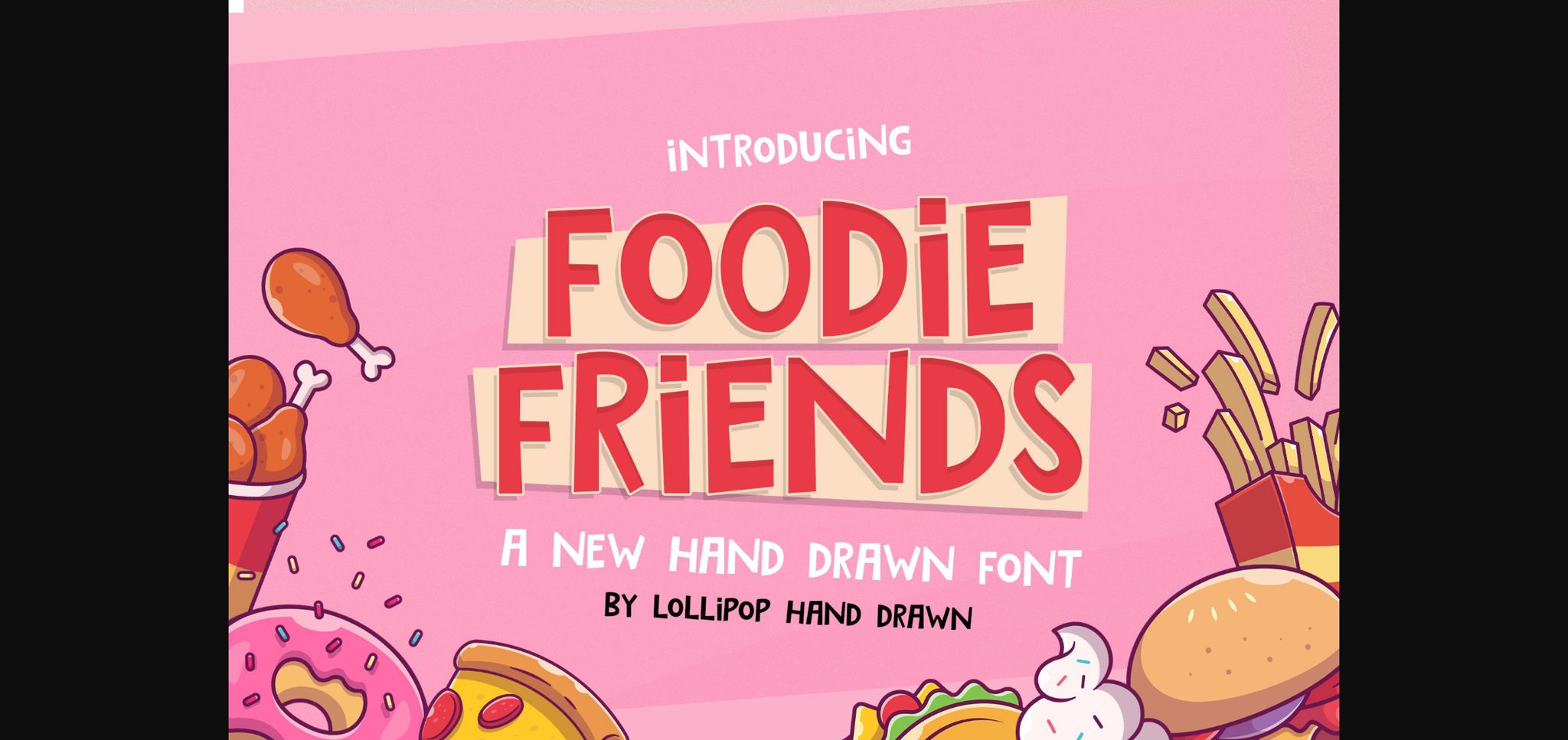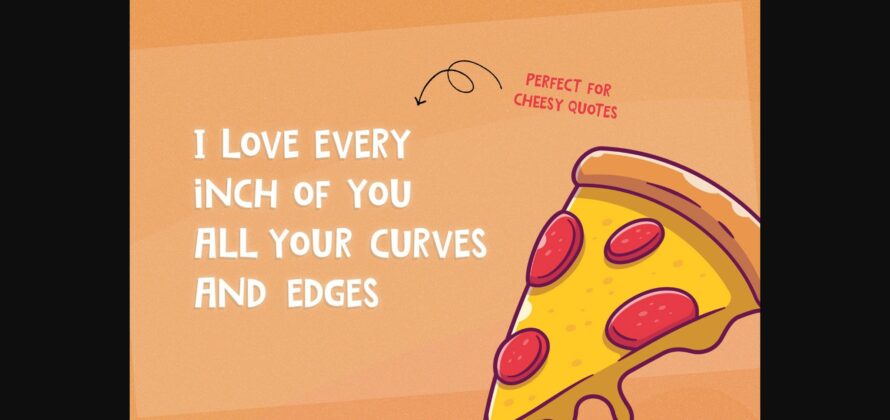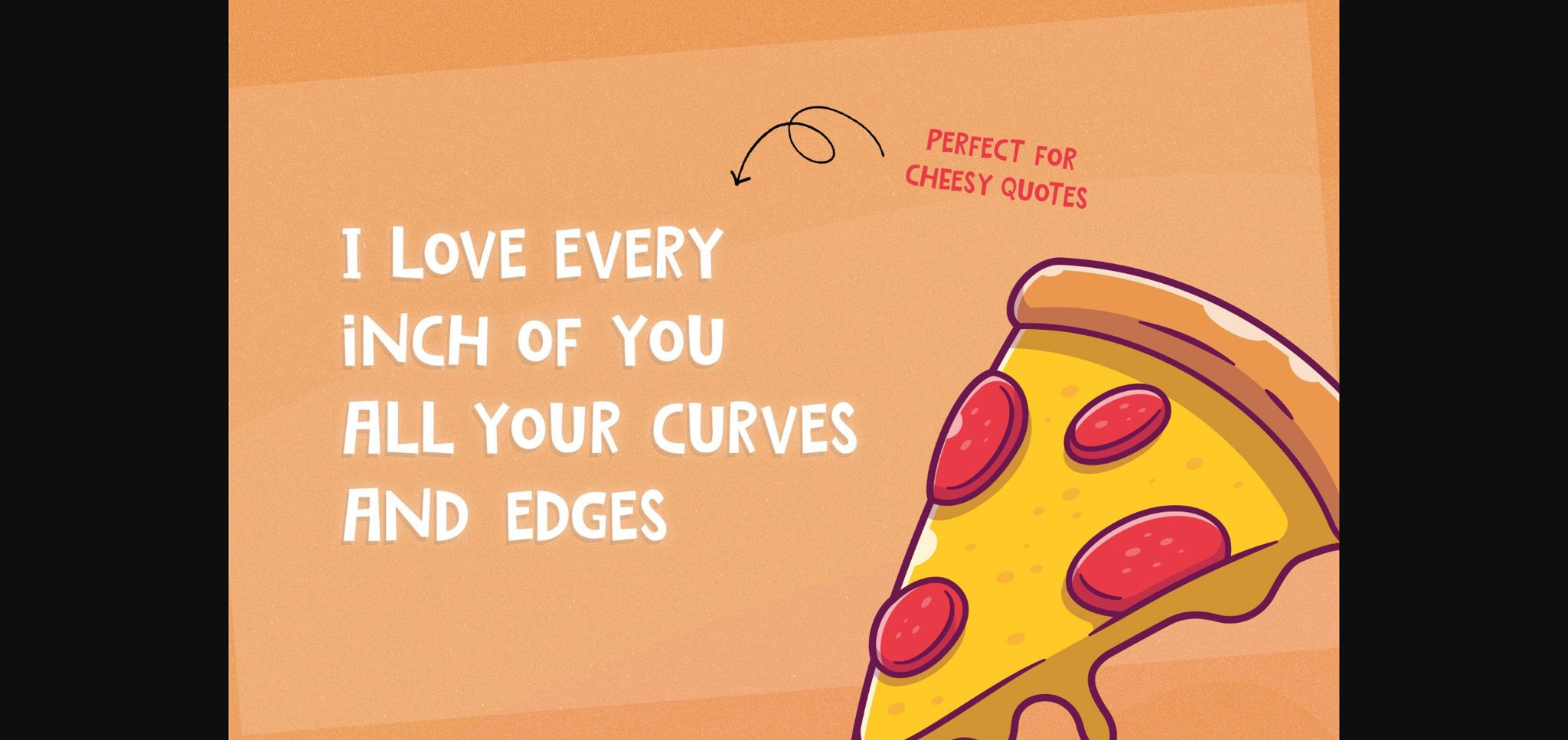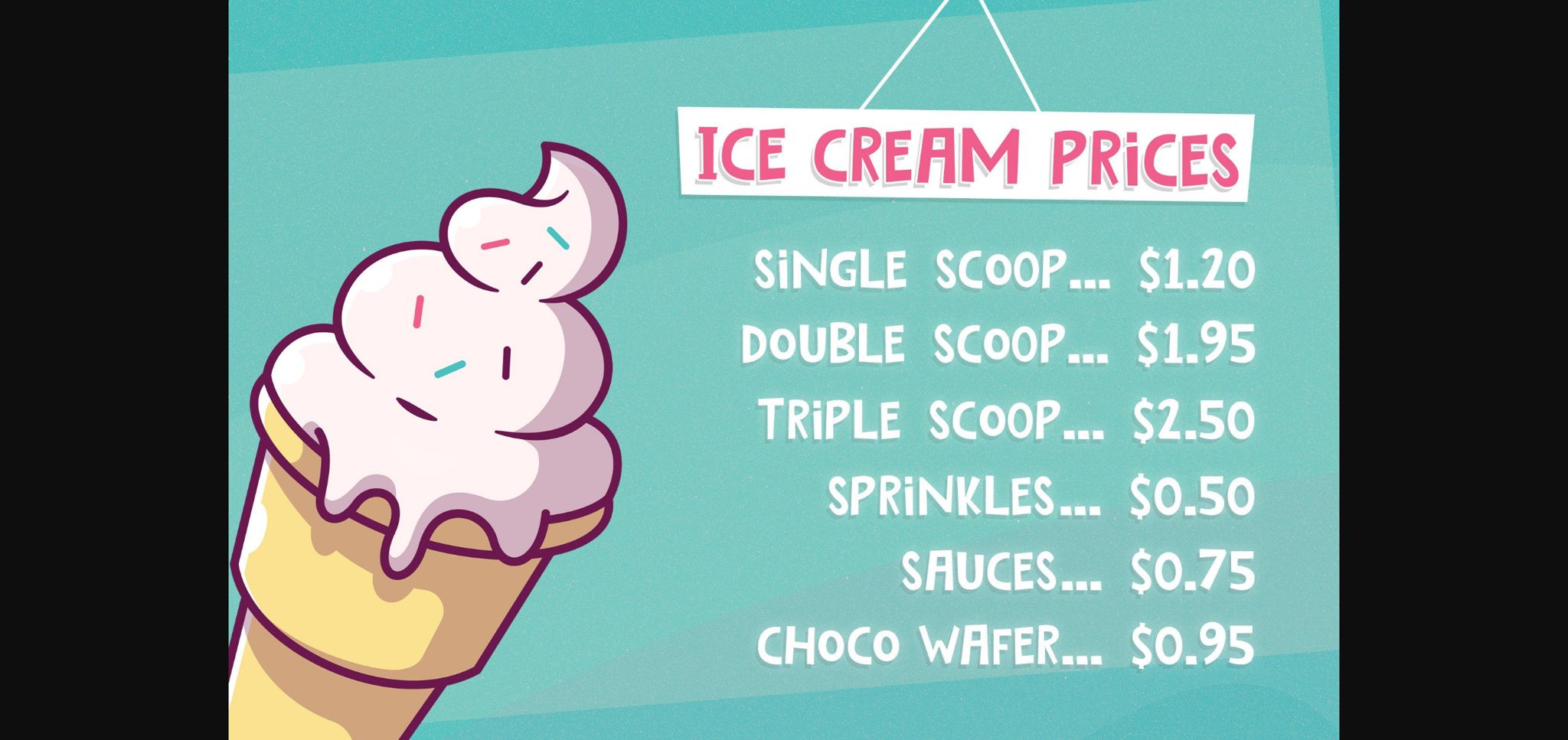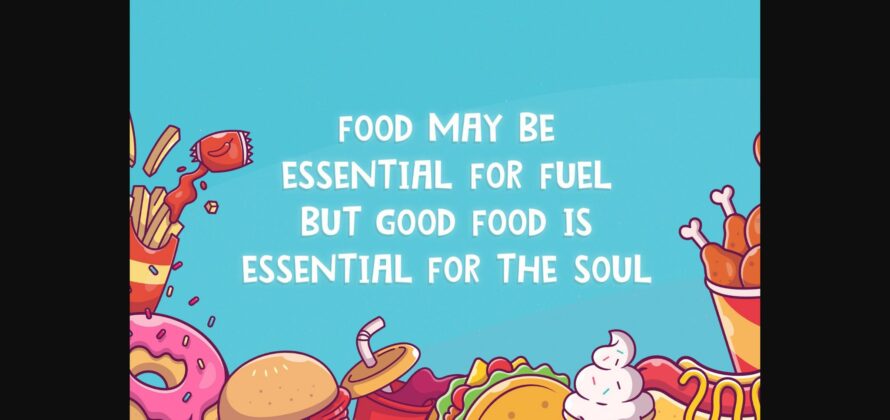
HomeSans Serif FontsFoodie Friends Font Sans Serif Fonts Foodie Friends Font FacebookXPinterestWhatsApp 1 of 7 ... Foodie Friends Font Poster 2... Foodie Friends Font Poster 3... Foodie Friends Font Poster 4... Foodie Friends Font Poster 5... Foodie Friends Font Poster 6... Foodie Friends Font Poster 7... About Foodie Friends Font Foodie Friends is a sweet and joyful handwritten font. Its cute and playful style is suitable for a large variety of crafty ideas! DOWNLOAD NOW People also explored Machaela Font Origin Alphabet Font Linestorys Font Farmhouse Signature Font Qomallida Font MiloBely Font Greenlight Font Fauziah Font Tasty Bready Font 519 0 TagsFoodie Friends Font Previous articleGulka FontNext articleChelopace Font LEAVE A REPLY Cancel reply Comment: Please enter your comment! Name:* Please enter your name here Email:* You have entered an incorrect email address! Please enter your email address here Website: Save my name, email, and website in this browser for the next time I comment. Personal Use Free DoooLA Personal Use Free Read more about this font Nugo Sans Personal Use Free Read more about this font Still Time Personal Use Free Read more about this font Avatarock Personal Use Free Read more about this font BLOG Top 10 Handwritten Fonts That Elevate Your Designs Top 10 Handwritten Fonts That Will Elevate Your Designs Handwritten fonts bring a warm, personal touch to every creative project. Whether you're designing logos, invitations,... Best Fonts for T-Shirt Design – Top 2025 Picks How to Install and Use Fonts on Windows, macOS, and Web Projects Elegant Wedding Invitation Fonts – Handwritten & Script Fonts